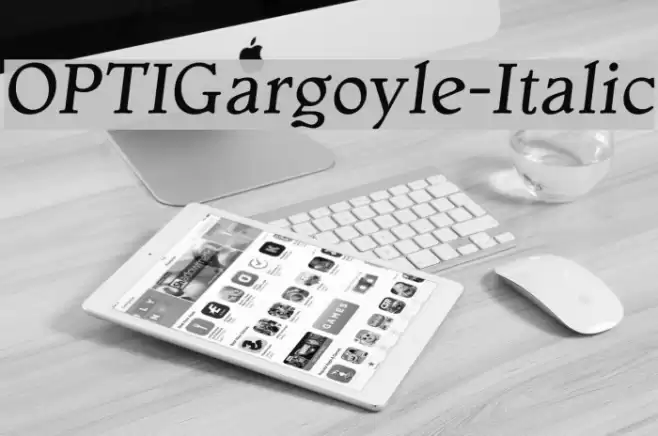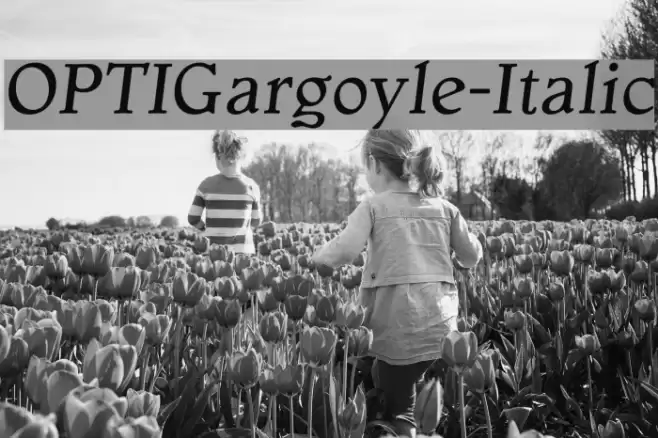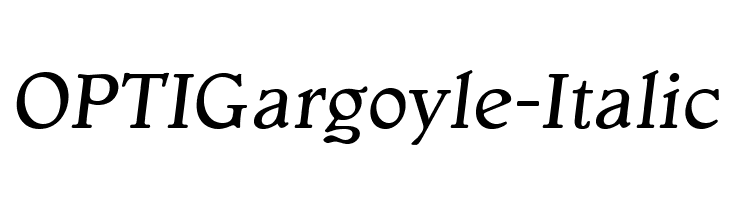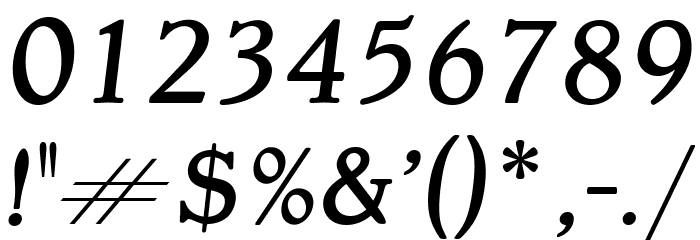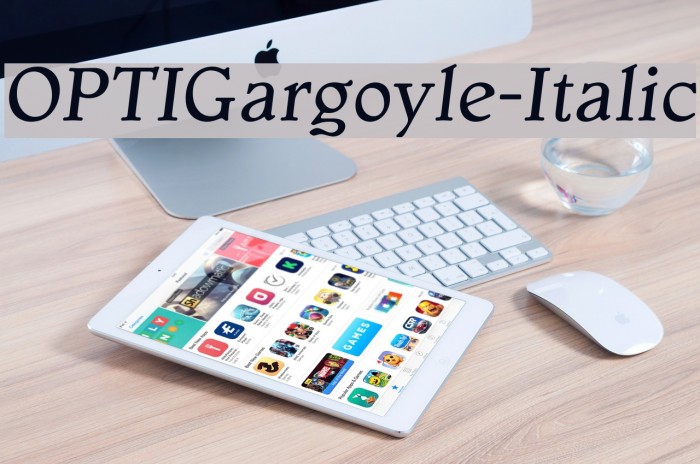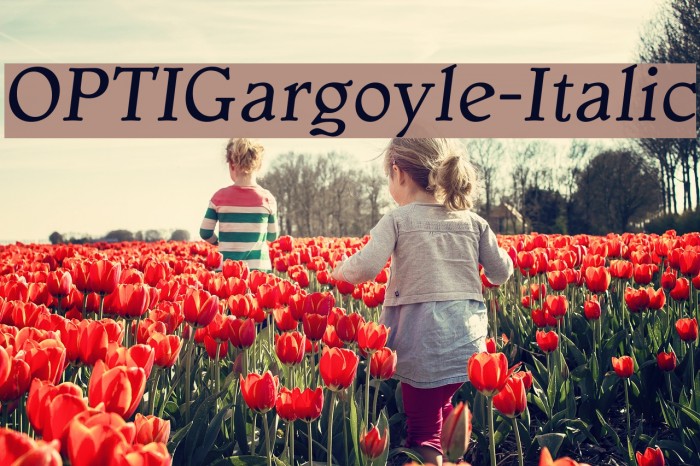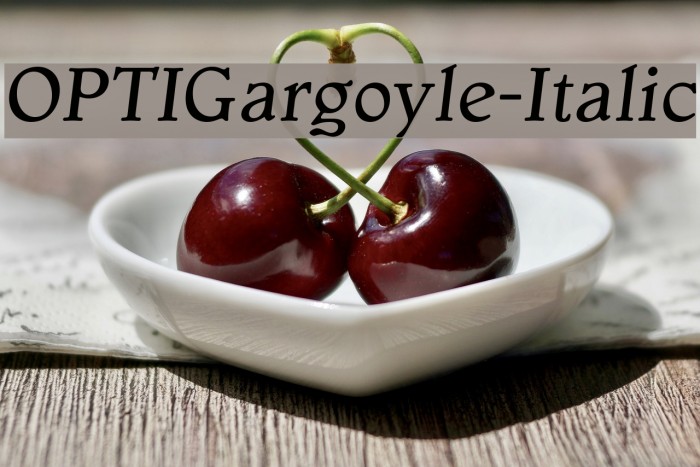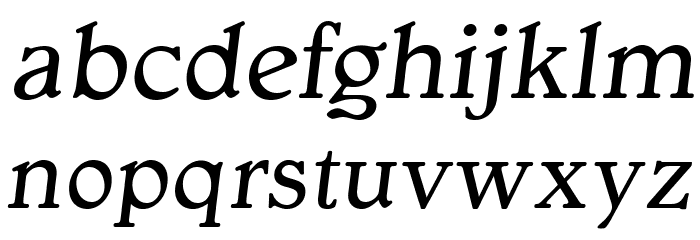
OPTIGargoyle-Italic Font
OPTIGargoyle-Italic Description
This font features a classic serif style with a distinct italic slant, giving it an elegant and sophisticated appearance. The characters are well-defined with sharp serifs and a moderate stroke contrast, enhancing readability while maintaining a stylish flair. The uppercase letters are bold and commanding, while the lowercase letters are more refined, providing a balanced look. The numerals are clear and consistent, and the special characters are designed to complement the overall aesthetic. This font is suitable for projects that require a touch of elegance and tradition.
Elegant serif font with italic style and moderate contrast from Uncategorized fonts.
- Proposed Projects: Ideal for formal invitations, book covers, editorial design, and branding materials.
- Overall Style: Classic